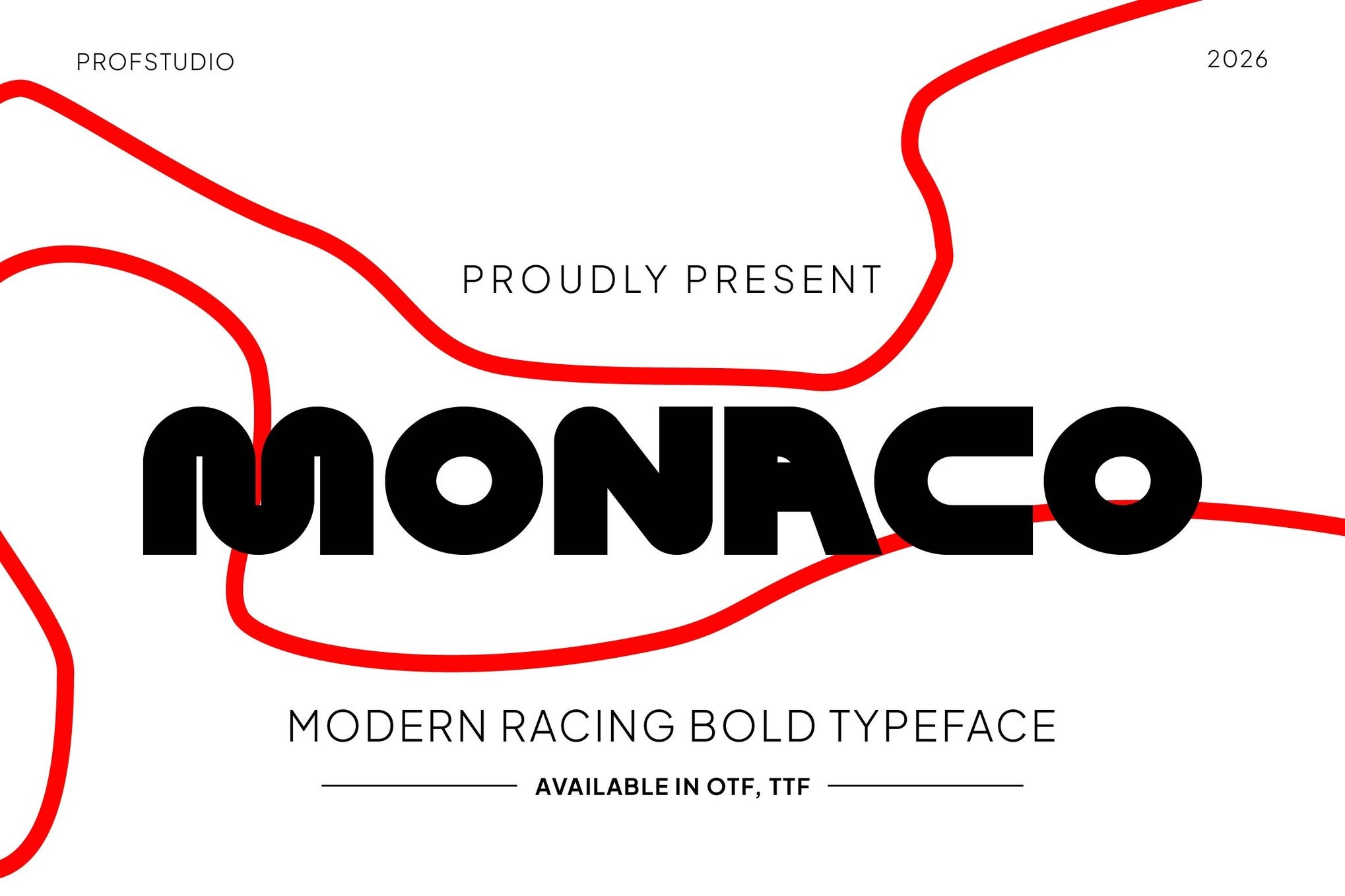
Monaco – Modern Bold Font
Monaco – Modern Bold Font is a flexible and reliable font created to fit multiple design needs, from branding and packaging to social media and editorial layouts. Monaco is a display typeface that can help display messages in the designs you create. With its rounded modern and racing character will take your creativity to the next level, it is suitable for you to use on posters, flyers, magazine covers, books, vinyl, CDs, and many other media.